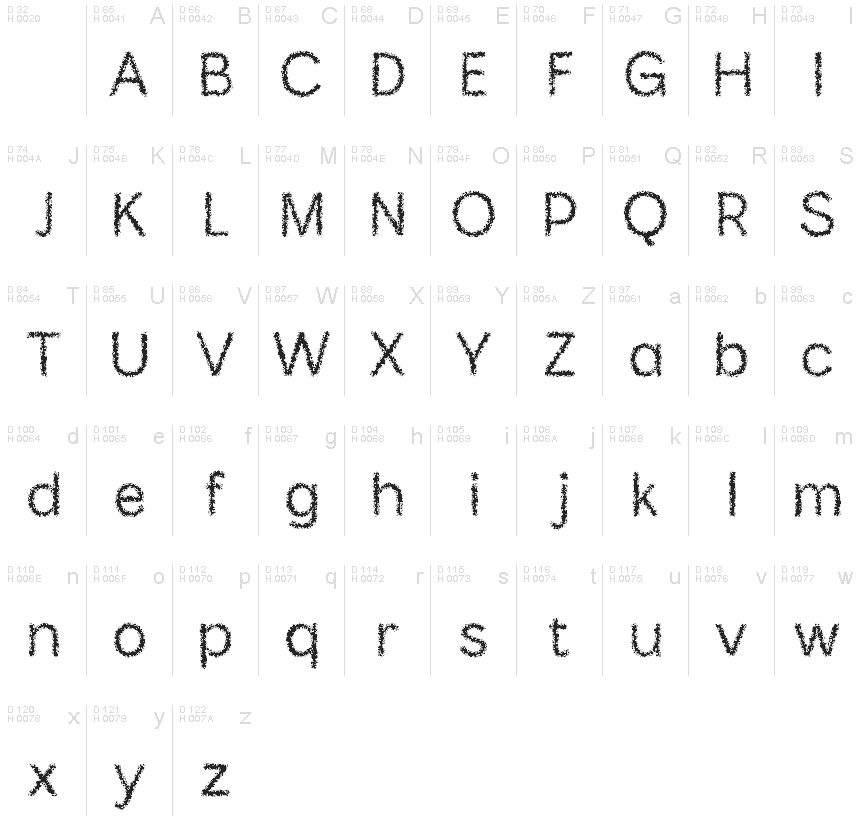
Brendie Unfocus Regular Demo
Brendie Unfocus font by Craft Supply Co. is a distorted display font with an uneven finish that’s unique to every letter. The texture is rough and adds an informal vibe making it ideal for contemporary designs. Use the varied baseline and letter heights to your advantage by adding this fresh new typeface in your next printed or digital work.